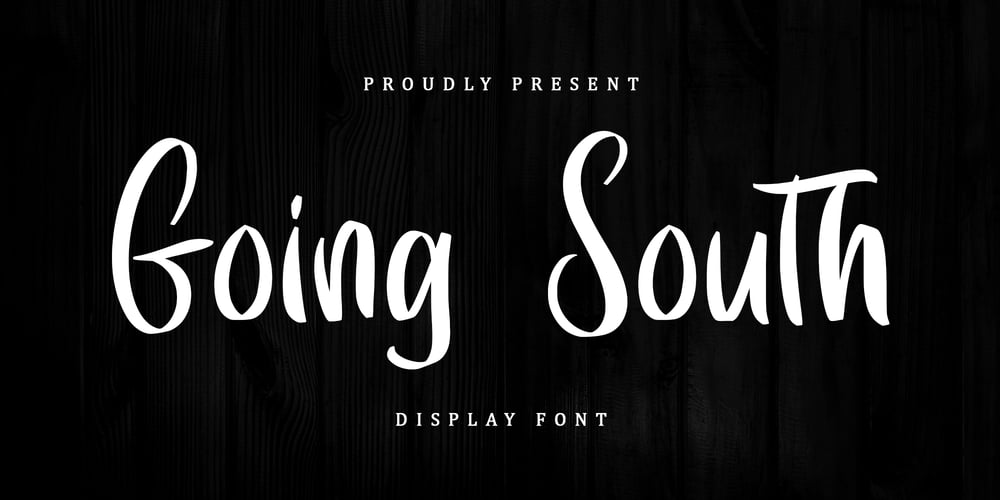
Going South Font Family was designed by Alif Ryan Zulfikar and published by Sakha Design. Going South contains 2 styles and family package options. Going South is a modern and attractive script font! Featuring clean lines and a contemporary feel, each letter is carefully crafted with a bold yet graceful stroke. Perfect for adding a touch of sophistication to any project, from logos and branding to invitations and more.